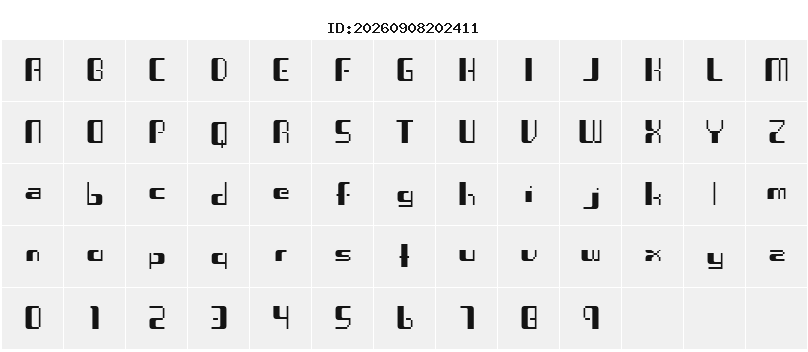
Virus 53X Preview
• Font Name: Virus 53X
• Full Font Name: Virus 53X
About Virus 53X.ttf
Virus 53X.ttf is a modern, elegant sans-serif font designed for ultimate readability and visual harmony. Perfect for branding, headlines, web design, and print materials.